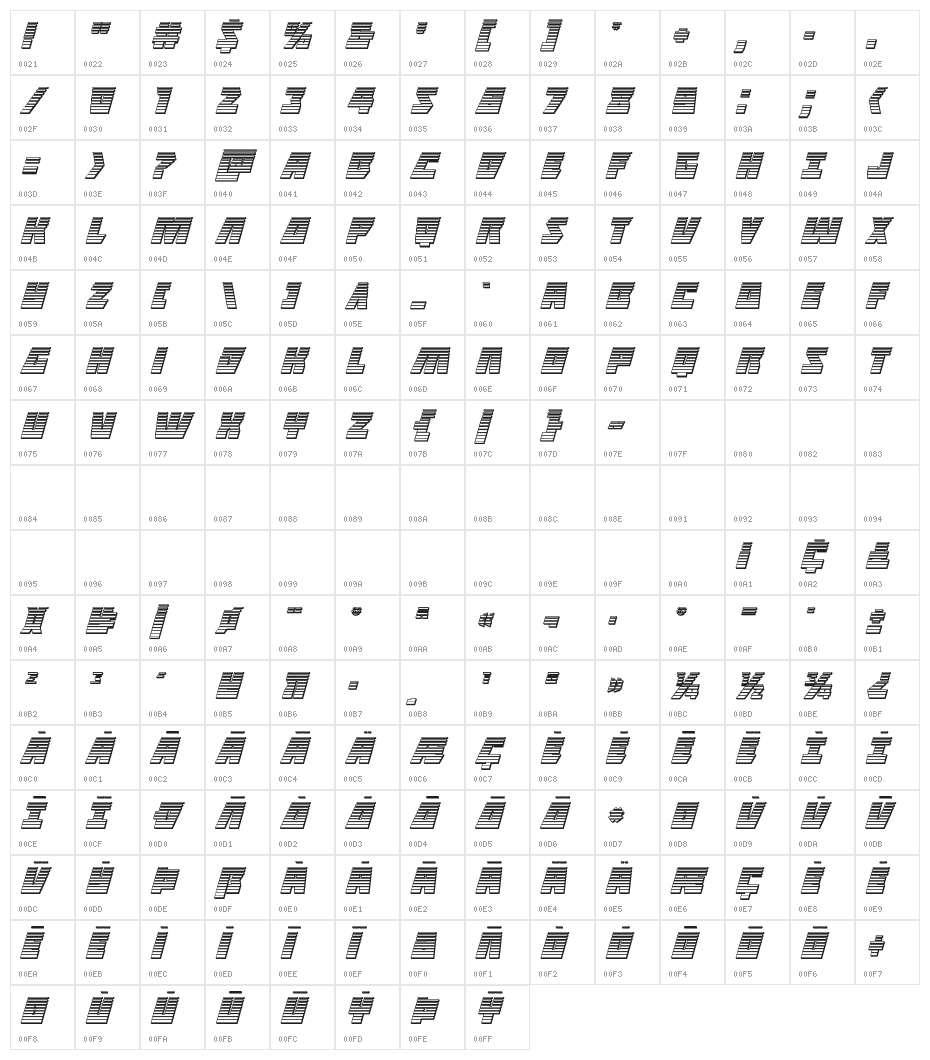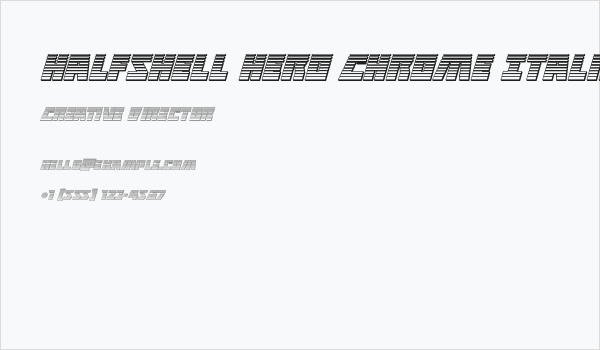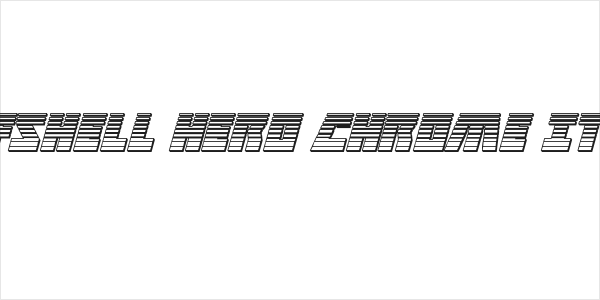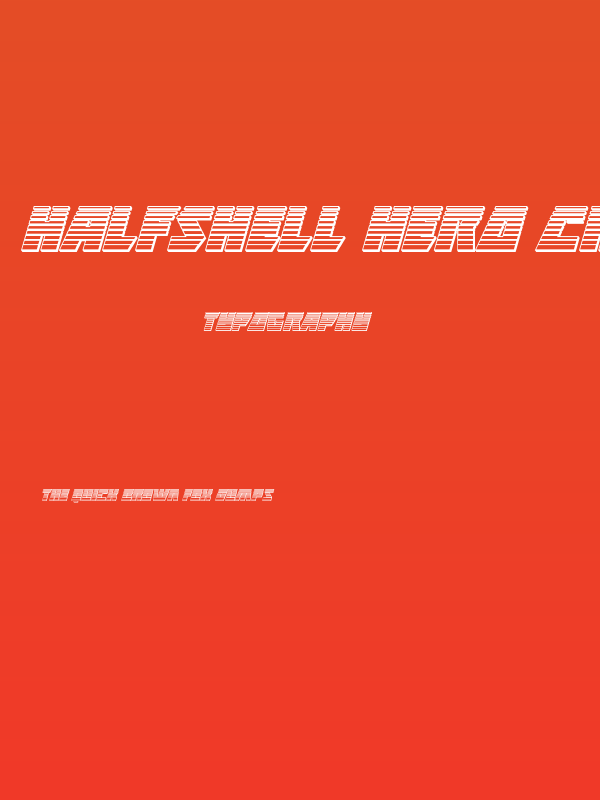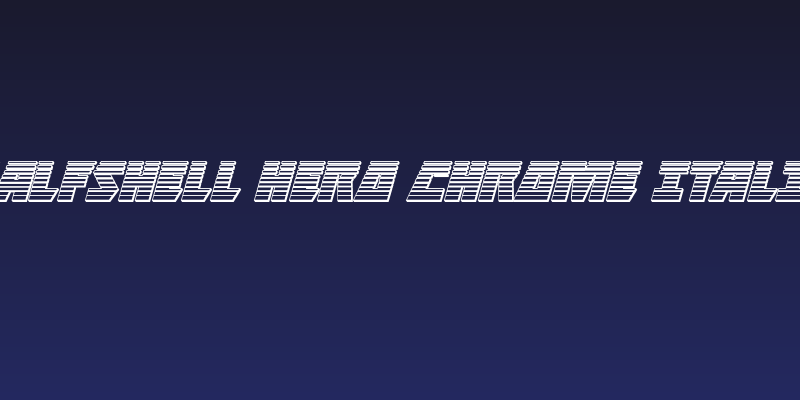
Halfshell Hero Chrome Italic Font
Halfshell Hero Chrome Italic Description
This font features a bold, futuristic design with a distinct three-dimensional effect. Each character is constructed with parallel lines that create a sense of depth and movement, giving it a dynamic and modern appearance. The italic slant adds to its energetic feel, making it stand out in any design. The uppercase and lowercase letters maintain a consistent style, while the numerals and special characters are equally bold and striking. The overall look is reminiscent of retro-futuristic aesthetics, suitable for projects that require a strong visual impact.
Overall StyleFuturistic, Retro
Proposed ProjectsIdeal for video game titles, sci-fi movie posters, tech branding, and futuristic-themed events.